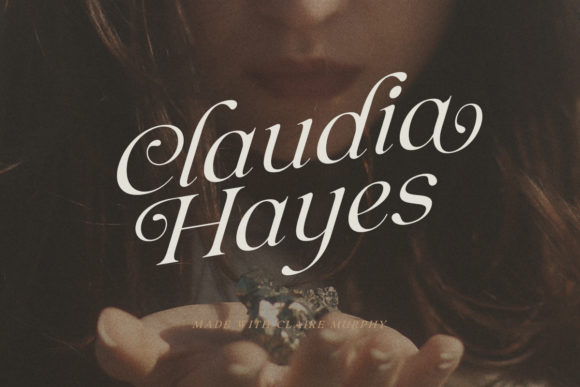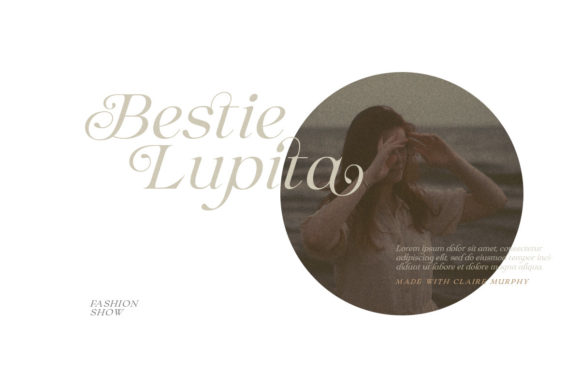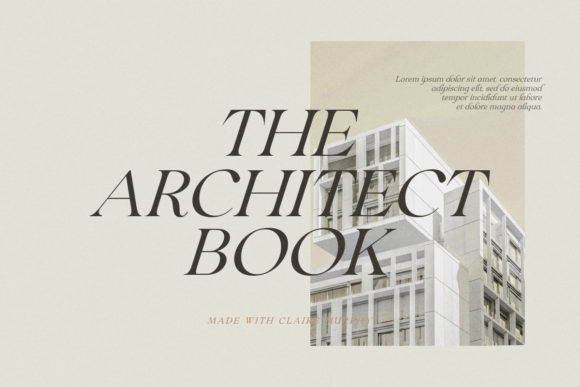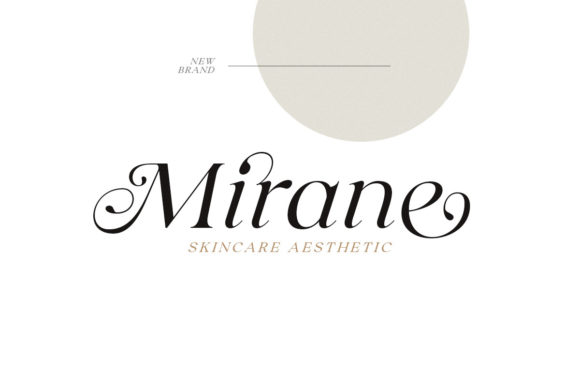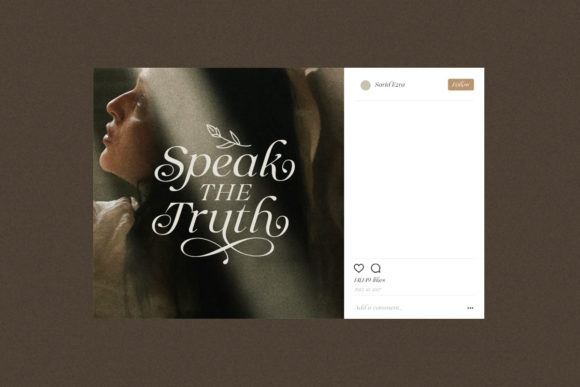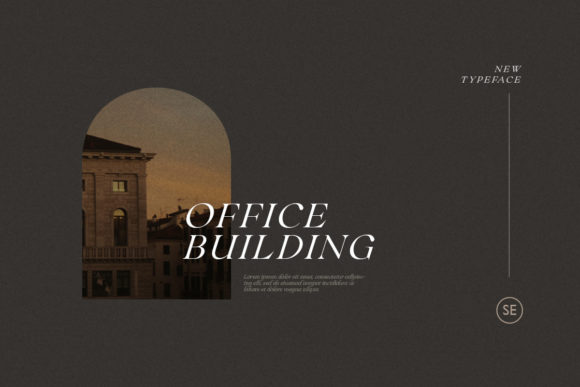
Discover the Elegance of Claire Murphy Font: Elevate Your Designs with Timeless Style
In the world of typography, few fonts manage to capture the essence of classic elegance while offering versatility for modern designs. Claire Murphy Font stands out as a beacon of sophistication, blending traditional serif elements with a fresh, stylish appeal. This article delves into the characteristics, benefits, and creative applications of the Claire Murphy Font, guiding designers and crafters on how to harness its potential to elevate their work.
The Essence of Claire Murphy Font
Claire Murphy Font is a classic and stylish serif font that exudes an air of refinement and poise. Its design strikes a perfect balance between traditional and contemporary aesthetics, making it an ideal choice for a wide range of design projects. Whether you’re working on a branding campaign, a website layout, or a crafting project, Claire Murphy Font brings a touch of elegance and sophistication.
- Flexibility and Neat Style: One of the standout features of Claire Murphy Font is its flexibility. It can be used in various contexts, from headlines and titles to body text, without losing its neat and stylish appearance.
- PUA Encoding: This font is PUA (Private Use Area) encoded, which means it offers easy access to all glyphs and swashes. This feature is particularly beneficial for designers who want to experiment with different variations and customizations without the hassle.
- Endless Variations: With Claire Murphy Font, the creative possibilities are endless. The inclusion of swashes and glyphs allows designers to explore a multitude of styles and variations, ensuring that each project can have a unique touch.
Applications in Design and Crafting
The versatility of Claire Murphy Font makes it suitable for a myriad of applications. Here are some ways designers and crafters can utilize this elegant font:
- Branding and Logo Design: Create memorable and stylish logos that stand out. The classic yet modern appeal of Claire Murphy Font can help establish a strong brand identity.
- Web Design: Enhance your website’s typography with a font that reads well and adds aesthetic value. Claire Murphy Font’s clarity and style ensure a great user experience.
- Stationery and Invitations: Add a touch of elegance to your stationery, invitations, and greeting cards. The font’s classic appeal makes it perfect for formal and informal events.
- Crafting Projects: Whether you’re designing digital products or working on handmade crafts, Claire Murphy Font can add a sophisticated element to your creations, from planners and journals to DIY decor.
Tips for Maximizing the Potential of Claire Murphy Font
To truly benefit from what Claire Murphy Font has to offer, consider the following tips:
- Experiment with Swashes and Glyphs: Don’t hesitate to explore the range of swashes and glyphs available. These elements can significantly enhance your design, adding personality and flair.
- Mix and Match: Combine Claire Murphy Font with other fonts to create interesting contrasts. A serif font like Claire Murphy can be paired with a sans-serif font for a dynamic visual hierarchy.
- Consider Your Audience: Tailor your use of the font to suit your project’s audience. For example, a more formal use might suit professional or corporate projects, while a more creative use could work well for personal or artistic endeavors.
Claire Murphy Font is more than just a typeface; it’s a tool for designers and crafters to imbue their projects with timeless elegance and style. Its flexibility, neat appearance, and extensive features make it an invaluable asset in the world of design. By understanding its capabilities and exploring its creative potential, you can unlock new possibilities for your work, ensuring that each project stands out with sophistication and charm.
So, dive into the world of Claire Murphy Font, and let its classic style and modern versatility guide your creative journey. Whether you’re aiming to create visually stunning designs or simply looking to add a touch of elegance to your crafting projects, Claire Murphy Font is sure to become an indispensable part of your creative toolkit.